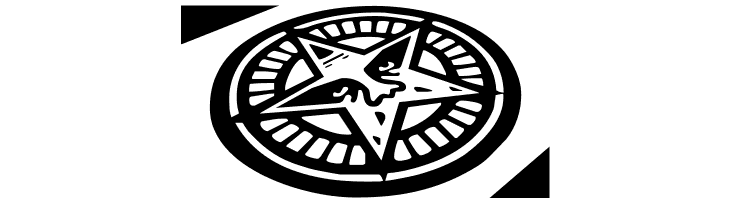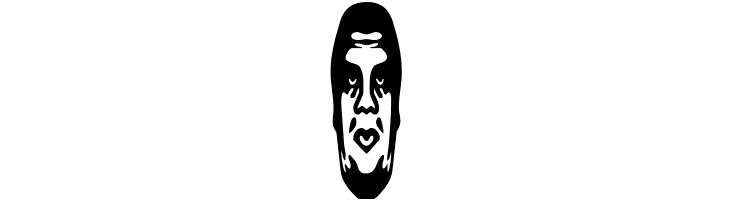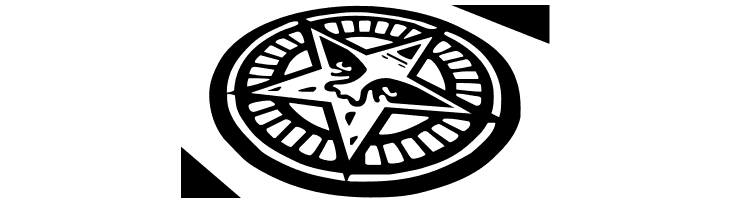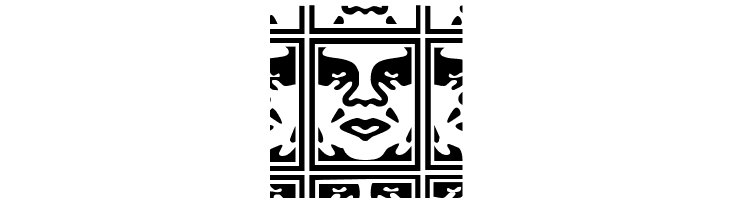
• noodleh
A geometric, pixelated font with a digital, retro aesthetic.
• November Sixteenth
A bold, outlined font with a modern and playful style.
• Obamaglyph
• Obey3D
A collection of graphic symbols with bold, intricate designs and a street art aesthetic.
• Obey3DAlt
A decorative and artistic typeface with intricate designs and patterns.
• Obey3DAltCaps
A decorative, artistic font with intricate designs and bold visuals.
• Obey3DCaps
A collection of graphic symbols and images, each with unique and intricate designs.
• ObeyAssorty
A decorative font featuring bold, artistic symbols and imagery.
• ObeyAssortyCaps
The image contains decorative graphics, not a standard font.
• ObeyBalloon
A graphic, face-based decorative font with strong visual impact.